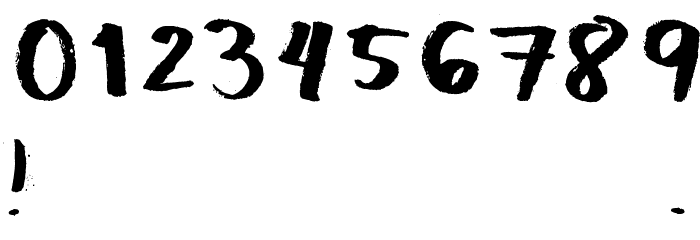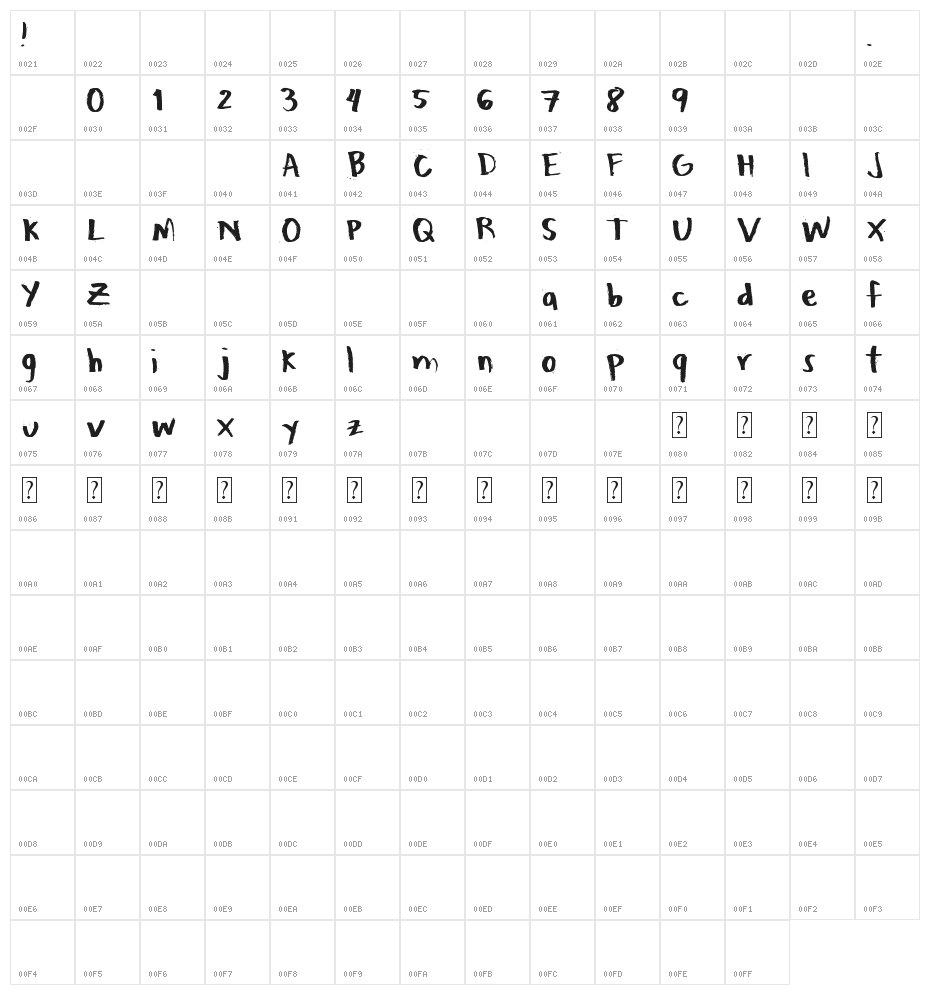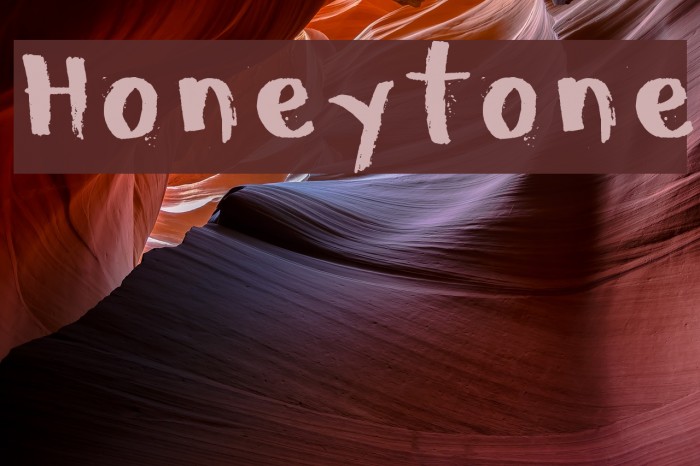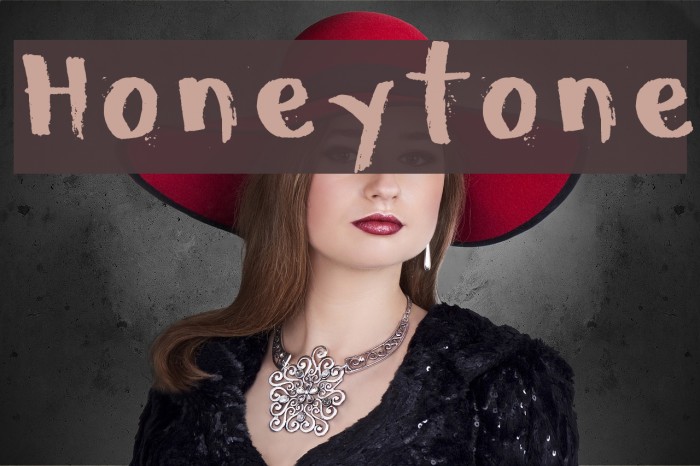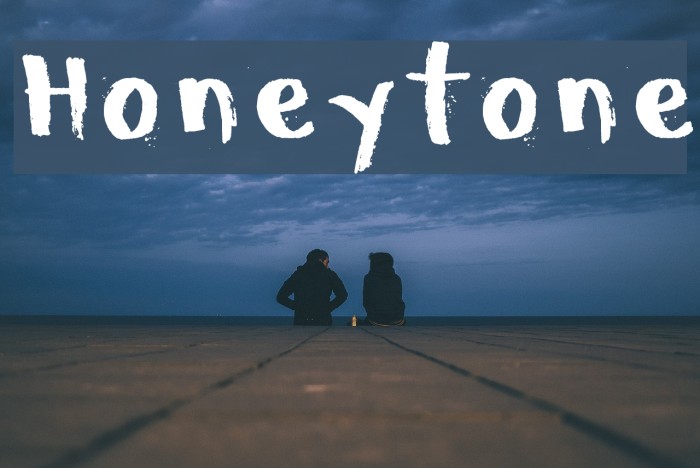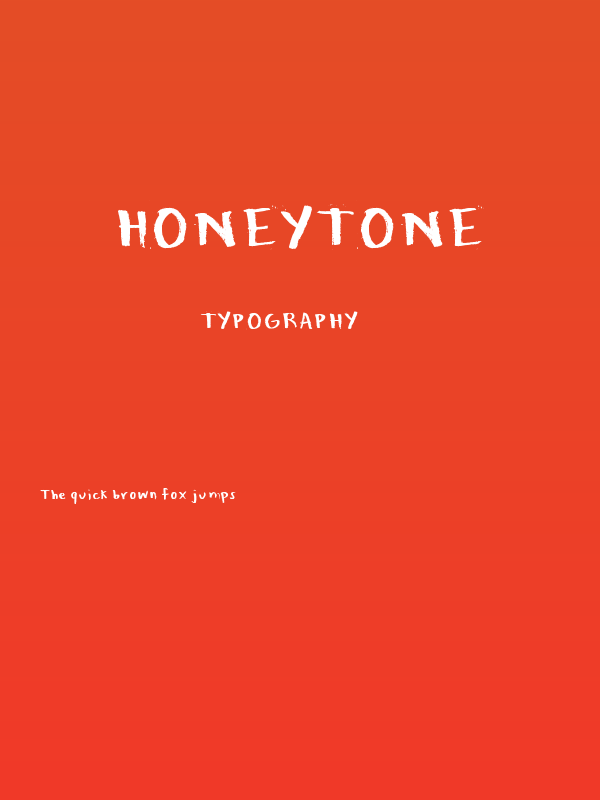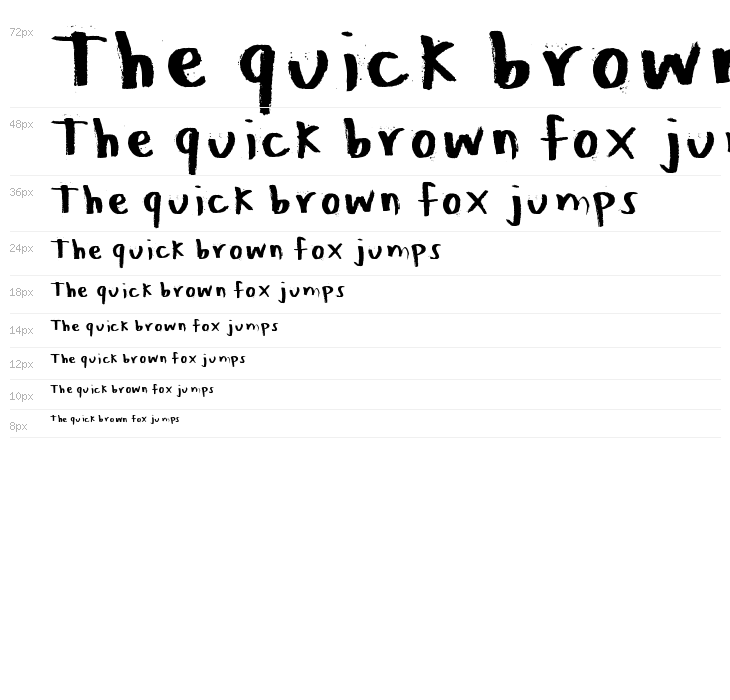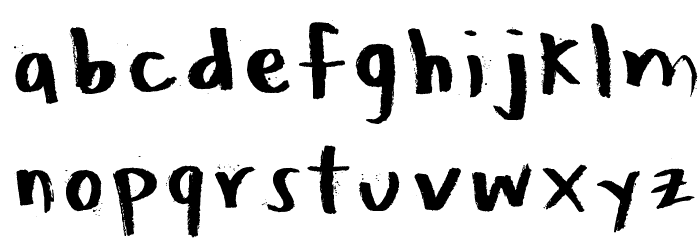
Honeytone Font
Honeytone Description
This font features a bold, hand-drawn style with a playful and artistic flair. The characters are uneven and slightly irregular, giving it a casual and organic feel. The strokes are thick and have a brush-like texture, adding to its handcrafted appearance. The uppercase and lowercase letters maintain a consistent style, with rounded edges and a slightly tilted orientation, enhancing its informal and friendly look. The numerals and special characters follow the same design principles, ensuring a cohesive overall aesthetic.